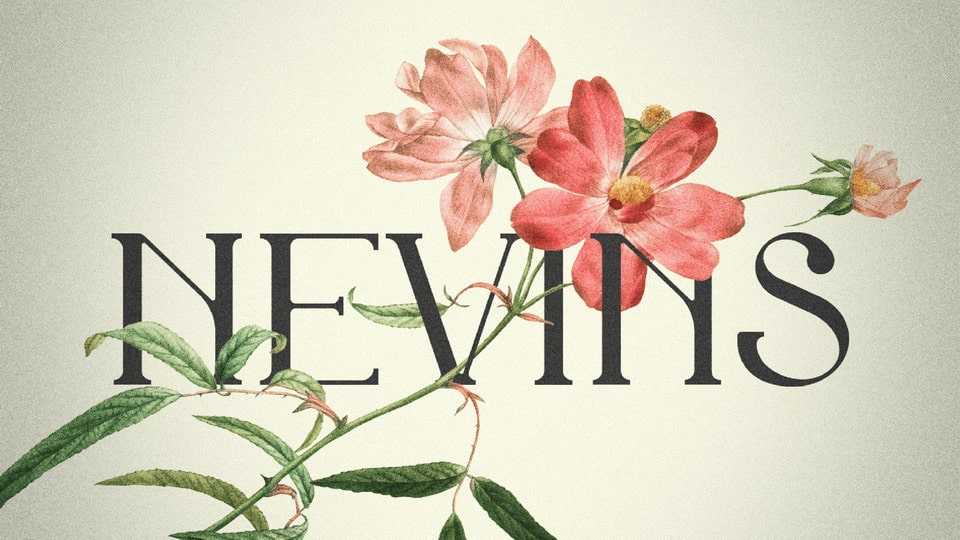
Download Nevins font, a sophisticated serif typeface that blends modern design with timeless elegance. Its smooth, rounded corners and expressive letterforms draw inspiration from classic vintage fonts.
Designer: Matthias Schweigert